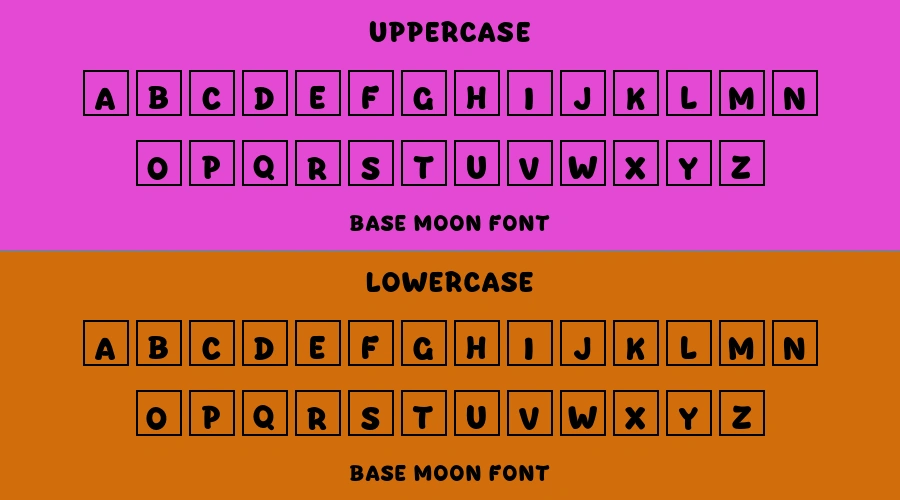
About Base Moon Font
Base Moon Font represents a sophisticated approach to type design, balancing expressive energy with design integrity. Perfect for engineering drawings, this font family showcases impressive originality and artistic value throughout its character set. Designers appreciate its versatility and reliability.
Designers will appreciate nuanced touches including width contrast and traditional figures, adding sophistication to any project. These features become apparent in certification marks, where small text clarity matters most. The careful treatment of counter shape and professional credibility ensures optimal performance.